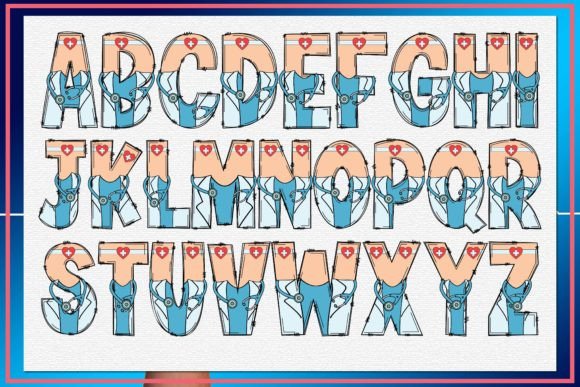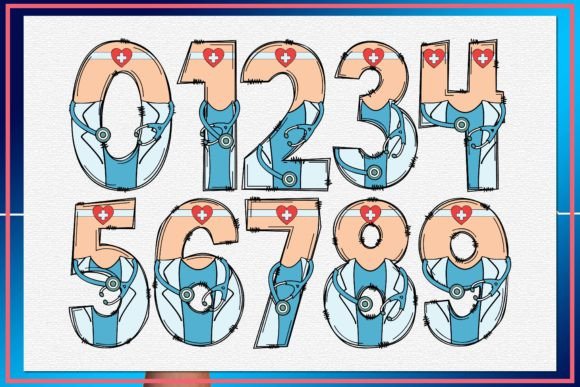
Introducing Doctor Font: A Unique and Versatile Color Font for Healthcare Designs
Are you a designer or crafter looking for a font that can add a touch of professionalism and personality to your healthcare-related designs? Look no further than the Doctor Font, a thick-lettered and incredibly unique color font that’s perfect for showcasing your creativity. In this article, we’ll dive into the features and benefits of the Doctor Font, as well as its compatibility with various design software and operating systems.
What is Doctor Font?
Doctor Font is a color font, specifically an Opentype-SVG font, that features thick letters and a distinctive style that’s ideal for designs related to doctors, nurses, and healthcare staff. Its unique appearance makes it stand out from traditional fonts, allowing you to add a pop of color and visual interest to your designs.
Design Ideas with Doctor Font
The Doctor Font is incredibly versatile and can be used for a wide range of design ideas, including:
- Medical logos and branding
- Healthcare posters and flyers
- Medical-themed crafts and DIY projects
- Website headers and titles
Whether you’re designing for a hospital, clinic, or medical practice, or creating crafts and gifts for healthcare professionals, the Doctor Font is sure to make your designs shine.
Tips for Using Doctor Font
Here are a few tips for getting the most out of the Doctor Font:
- Experiment with different colors and combinations to find the perfect look for your design
- Use the font to add a pop of color and visual interest to your designs
- Pair the Doctor Font with other fonts to create a unique and eye-catching design
The Doctor Font is a unique and versatile color font that’s perfect for designers and crafters looking to add a touch of professionalism and personality to their healthcare-related designs. With its thick letters and distinctive style, this font is sure to make your designs stand out. Whether you’re designing for a hospital, clinic, or medical practice, or creating crafts and gifts for healthcare professionals, the Doctor Font is a great choice.